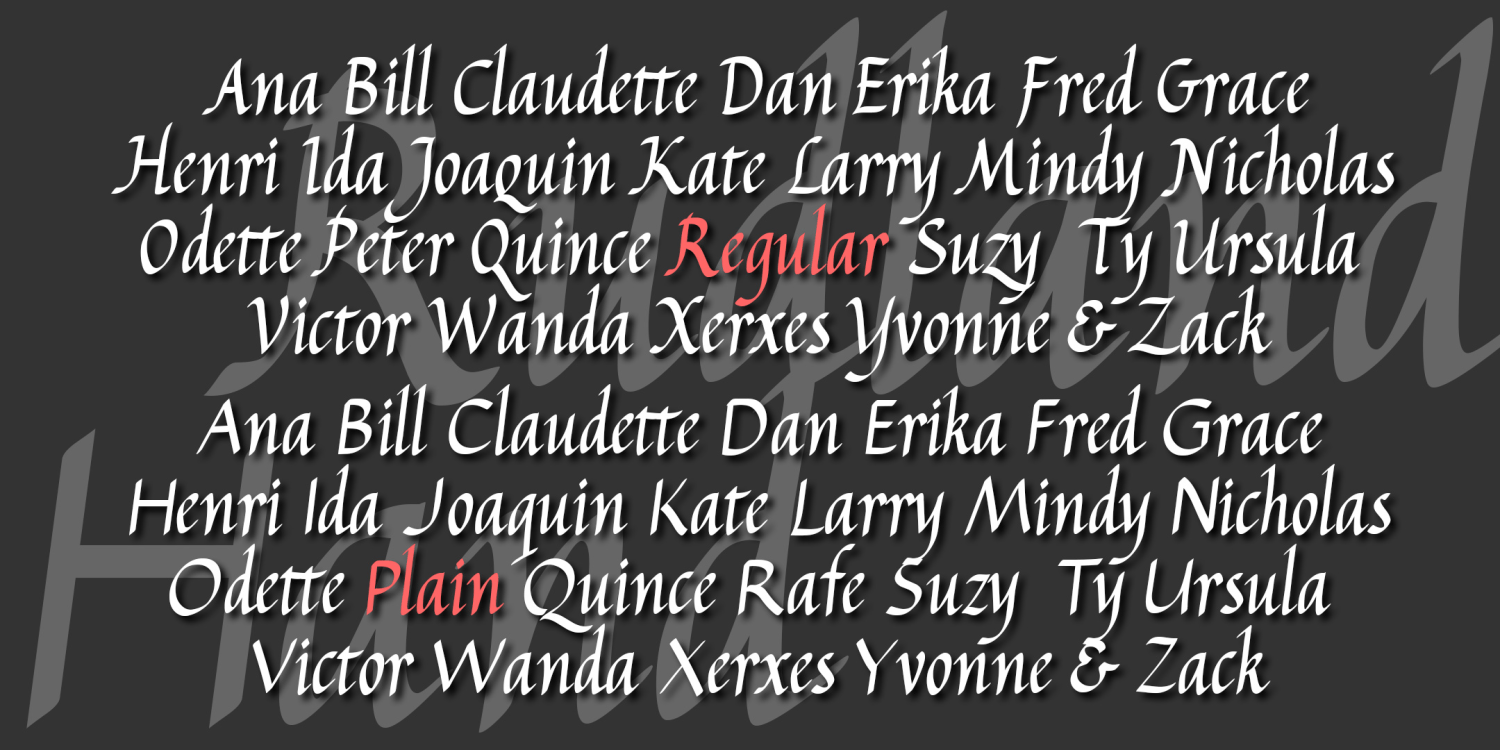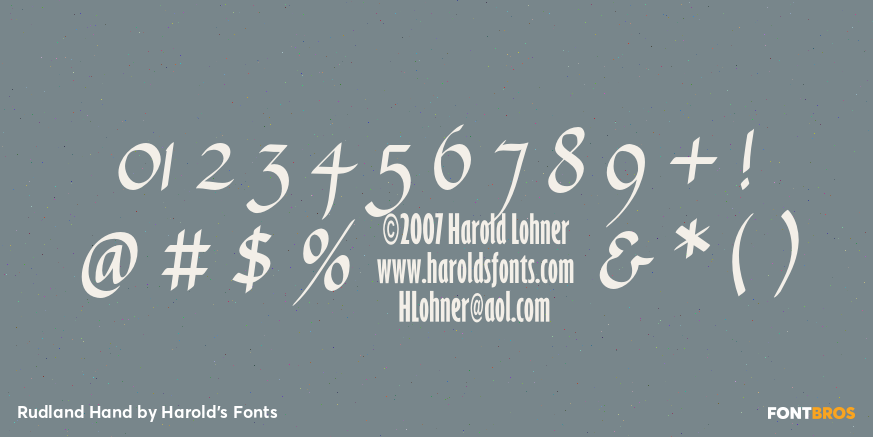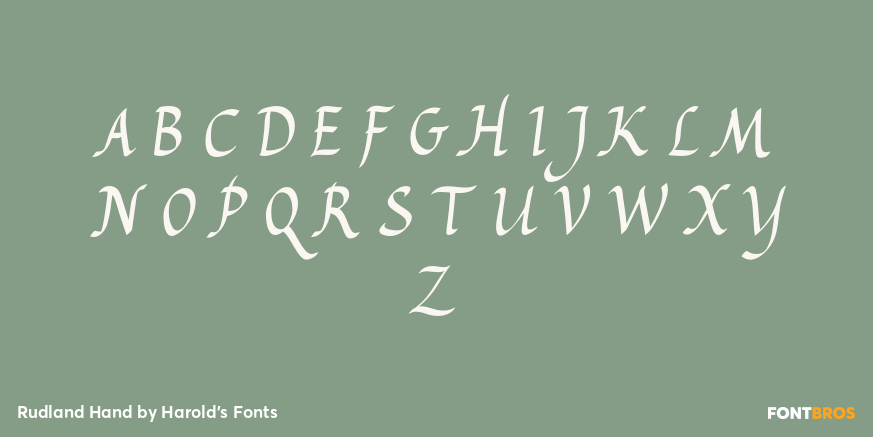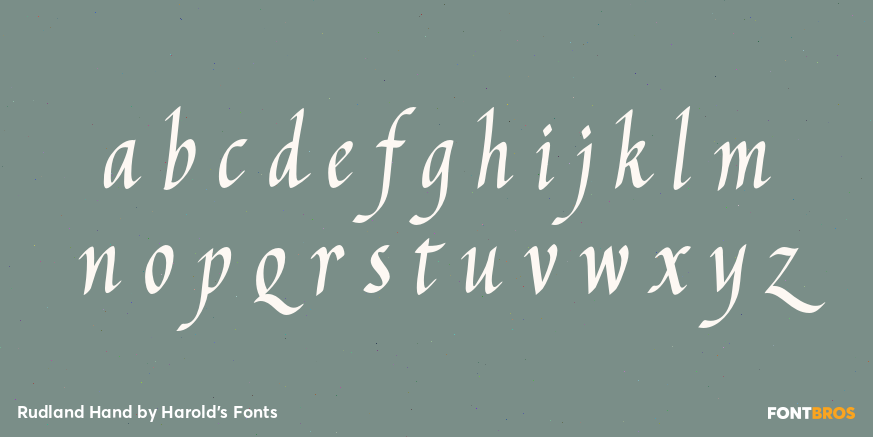
Rudland Hand
Font Family by Harold's Fonts
RUDLAND HAND is a calligraphic font, inspired by the work of the British artist and designer Peter Rudland. As explained in his book From Scribble to Script (John De Graff, 1956) Rudland was an advocate of this style of script as a way to improve one's handwriting. So although it may seem like ornamental calligraphy, Rudland intended that ordinary people would develop this beautiful, flowing, pen lettering. You could use the font as a resource for practicing your own script or, if your handwriting is as hopeless as mine, a convenient substitute. The Regular font has more swashes, the Plain font has fewer.